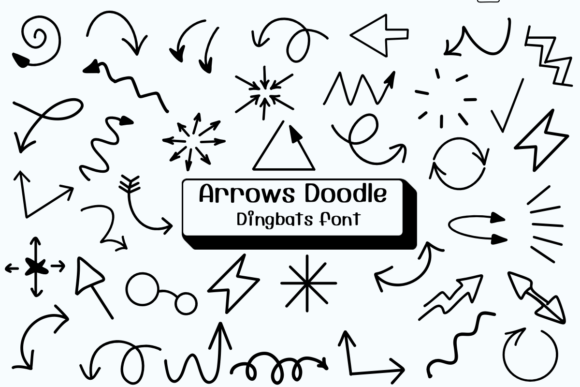
The Power of Arrows Doodle Font: Unlocking Creative Potential
I’ll never forget the time I was working on a wedding invitation project, and my client asked for a custom font that would match their quirky and playful vibe. I scoured the internet, trying out different fonts, but none seemed to fit the bill. That’s when I stumbled upon the Arrows Doodle Font, and it was love at first sight! 💕
This dingbats font with a sketch style theme has been a game-changer for my creative projects, and I’m excited to share its awesomeness with you. In this article, we’ll dive into the world of Arrows Doodle Font, exploring its features, uses, and some helpful tips and tricks.
• ✨ Unique and quirky design that adds a personal touch to any project
• ✅ Highly versatile and can be used for a wide range of creative projects, from wedding invitations to DIY crafts
• 🎨 Sketch-style illustrations that give it a hand-drawn feel
While Arrows Doodle Font is an amazing font, there are a few things to keep in mind:
• ⚠️ Some characters may not be suitable for body text, as they are designed for display purposes
• 🤔 Limited language support, so it’s best used for English or similar languages
The Designer Inspiration Behind Arrows Doodle Font
Arrows Doodle Font was created with the intention of bringing a touch of whimsy and creativity to design projects. The designer, inspired by the world of doodling and sketching, aimed to create a font that would be both fun and functional.
Font Name Arrows Doodle Font
Author Ketsarin
Q: What is Arrows Doodle Font?
A: Arrows Doodle Font is a dingbats font with a sketch style theme, designed for creative projects such as wedding invitations, DIY crafts, and decorations.